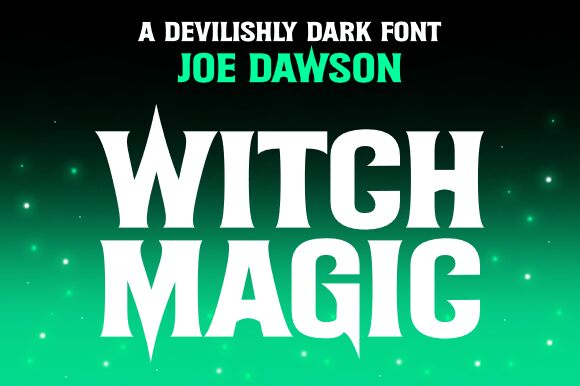
. Designed by Joseph Dawson, Witch Magic Italic is the perfect choice for all your holiday-themed projects.
Its bold weight and italic style add an air of mystery and intrigue, perfectly capturing the essence of Halloween. Whether you're designing party invitations, creating eerie posters, or crafting a mystical brand identity, this font will bewitch your audience with its spellbinding curves and mystic allure. With Witch Magic Italic, you'll effortlessly conjure up the kind of magic that will captivate and enchant anyone who lays eyes on your work.
So embrace the enchantment and let Witch Magic Italic cast its spell on your next creative endeavor.